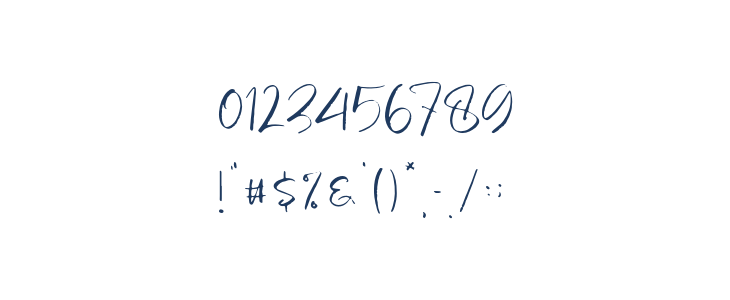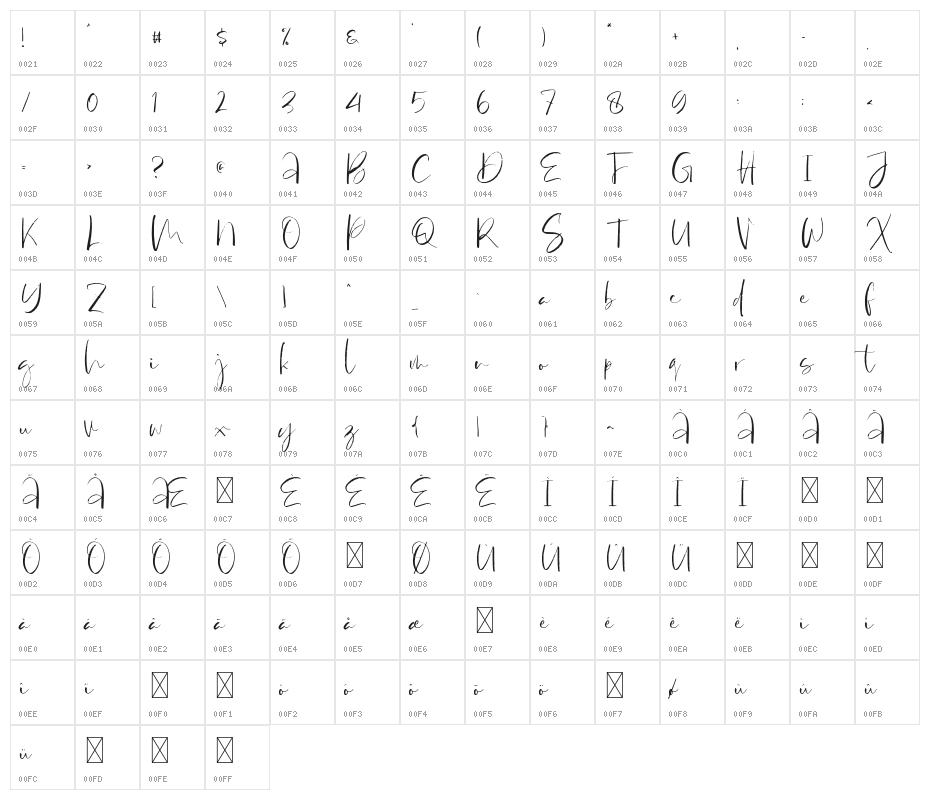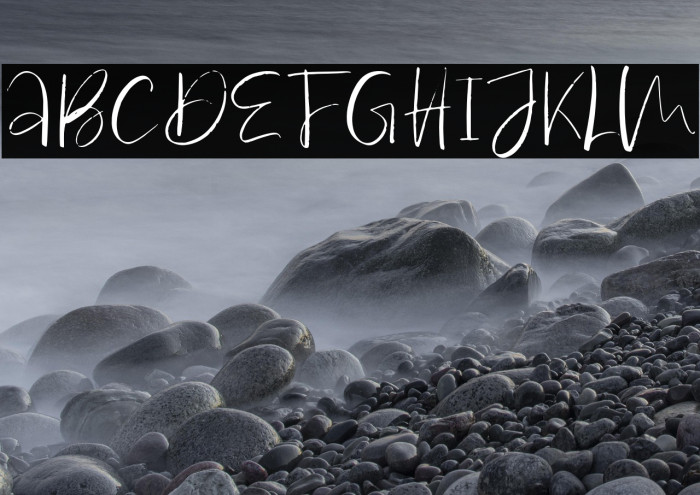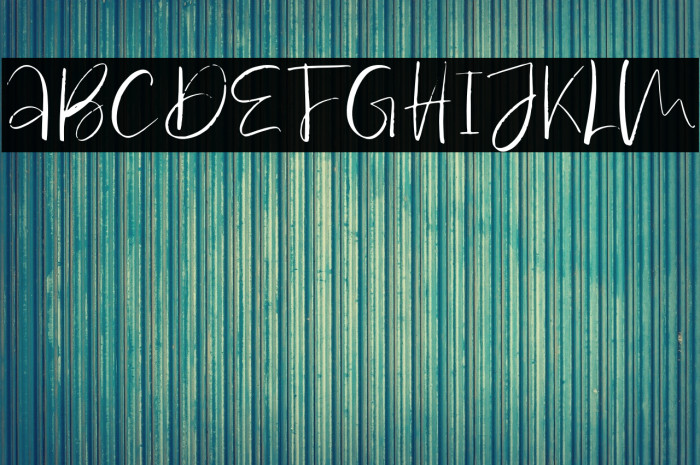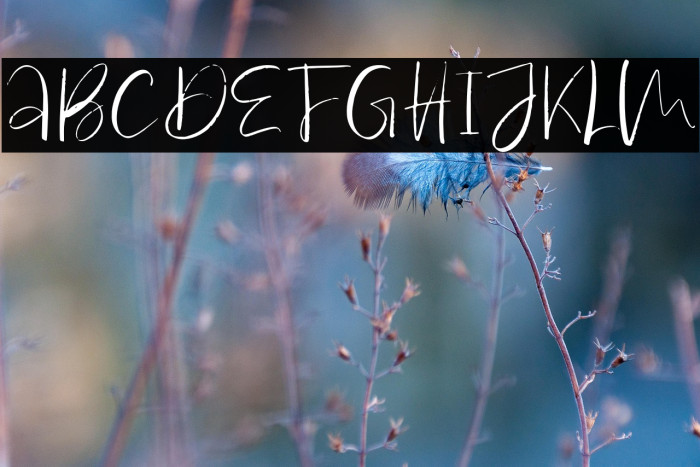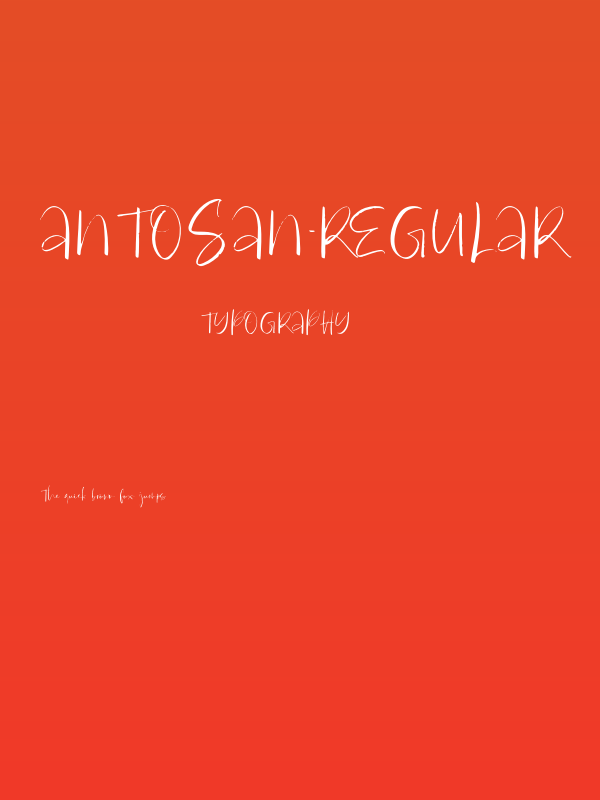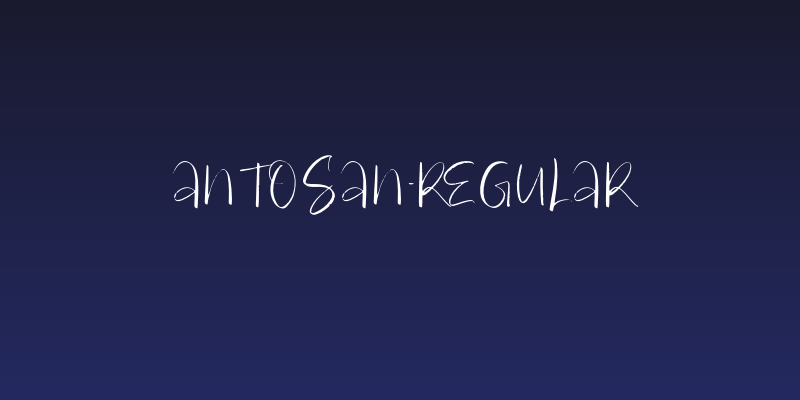
Antosan-Regular Font
Antosan-Regular Description
This font features a dynamic and expressive handwritten style, characterized by its fluid and organic strokes. The letters exhibit a natural flow, with varying thickness that adds a sense of movement and energy. The uppercase letters are bold and prominent, while the lowercase letters maintain a consistent rhythm, enhancing readability. The numerals are distinct and easily recognizable, complementing the overall design. Special characters are creatively integrated, maintaining the font's artistic flair. This font is perfect for projects that require a personal touch, such as invitations, greeting cards, and artistic branding.